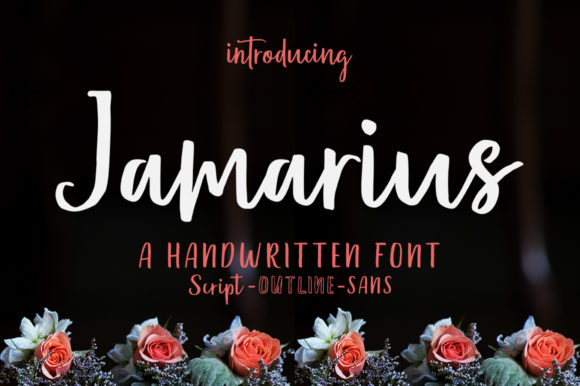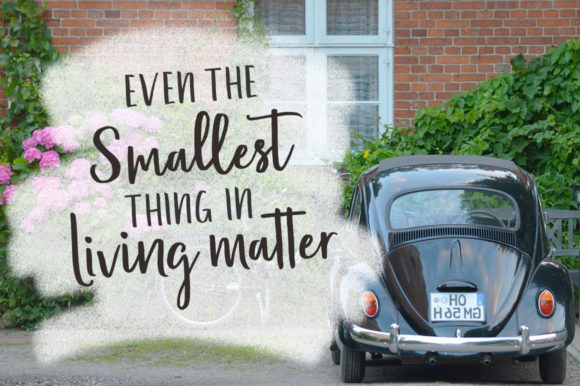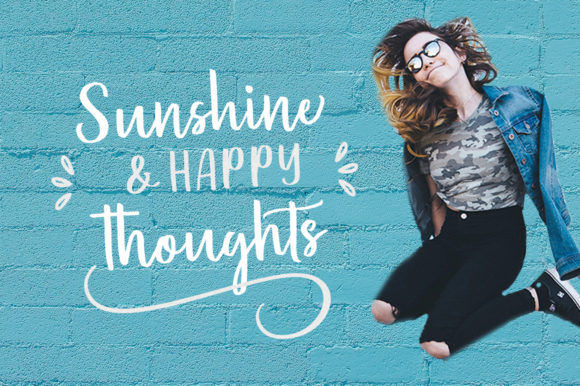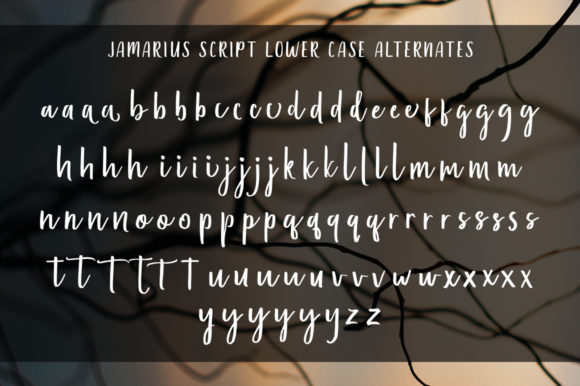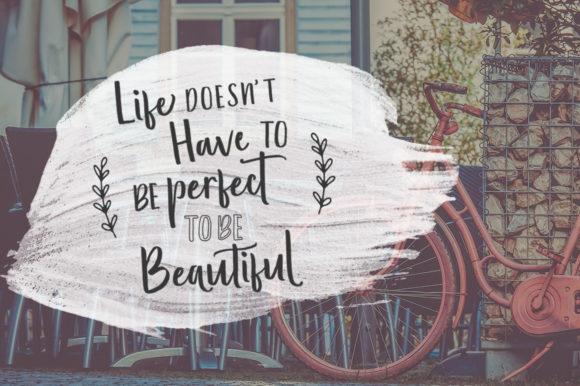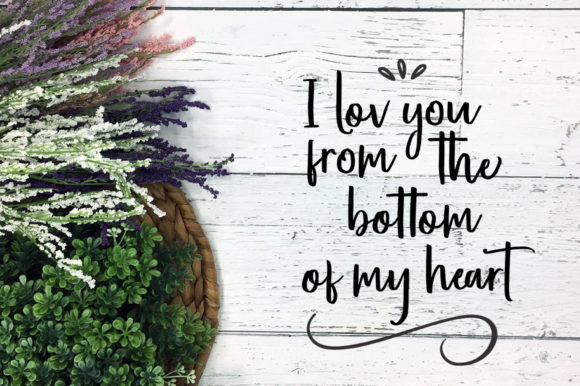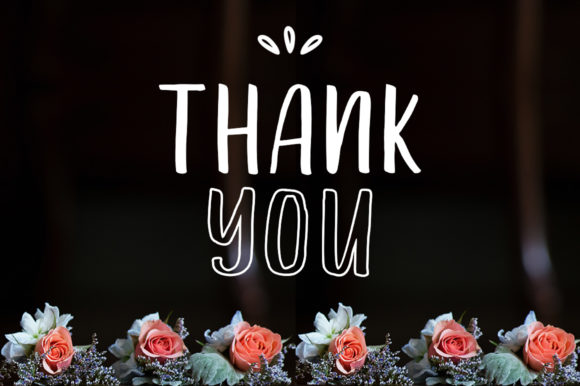
HomeScript FontsJamarius Font Script Fonts Jamarius Font FacebookXPinterestWhatsApp Jamarius Font Poster 2 Jamarius Font Poster 3 Jamarius Font Poster 4 Jamarius Font Poster 5 Jamarius Font Poster 6 Jamarius Font Poster 7 About Jamarius Font Jamarius is a playfully modern script with an authentic feel. Fall in love with its personal style! DOWNLOAD ON CREATIVE FABRICAThis font is sold and delivered by Creative Fabrica. Font Canyon may earn a commission if you buy through this link. People also explored Madam Font Morelinia Font BM Graphics – Arrows Font Anistton Font Malibu Script Font Brailey Font Sweet Honey Font Clarenwood JNL Font Swally Font 337 0 TagsJamarius Font Previous articleAverage FontNext articleAutography Font LEAVE A REPLY Cancel reply Comment: Please enter your comment! Name:* Please enter your name here Email:* You have entered an incorrect email address! Please enter your email address here Website: Save my name, email, and website in this browser for the next time I comment. Personal Use Free Rembank Personal Use Free Read more about this font Edo SZ Personal Use Free Read more about this font Spaghetti Personal Use Free Read more about this font Color Personal Use Free Read more about this font BLOG Free vs Paid Fonts: Why Investing in Premium Fonts Is Worth It Free vs Paid Fonts: Why Premium Fonts Are Worth It in 2025 The debate of free vs paid fonts continues in the design world. While... 5 Fonts That Will Dominate Design Trends in 2026 Elegant Wedding Invitation Fonts – Handwritten & Script Fonts Best Fonts for T-Shirt Design – Top 2025 Picks